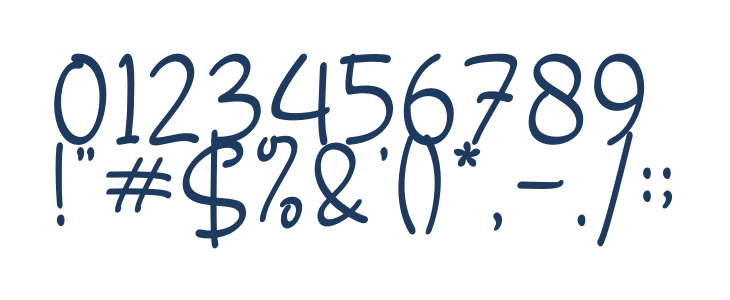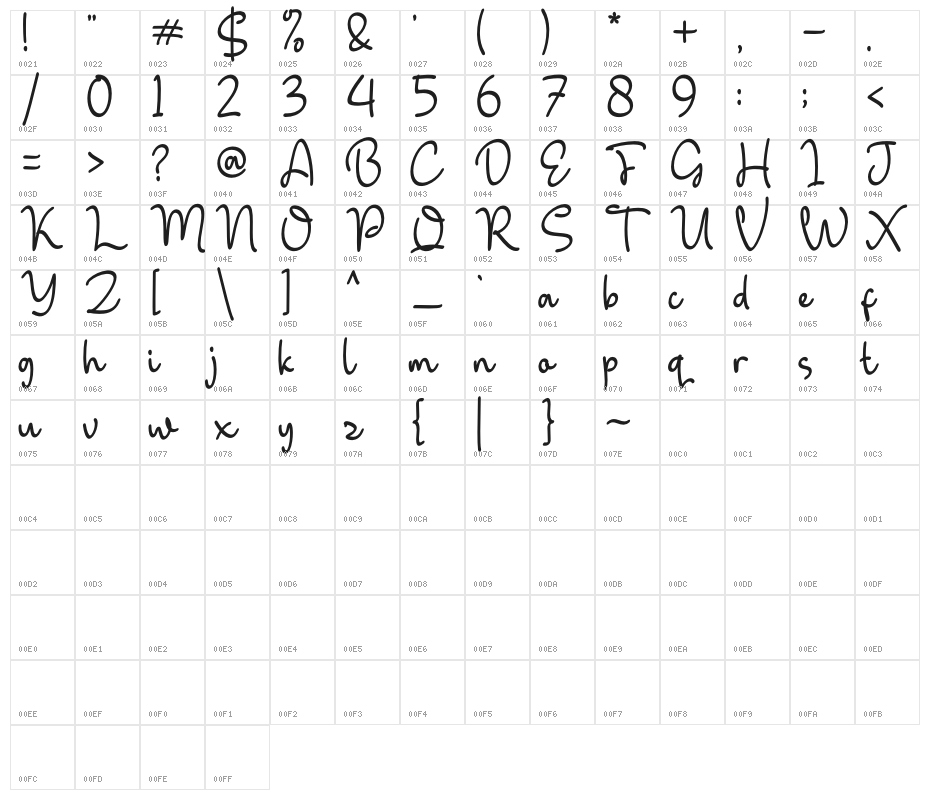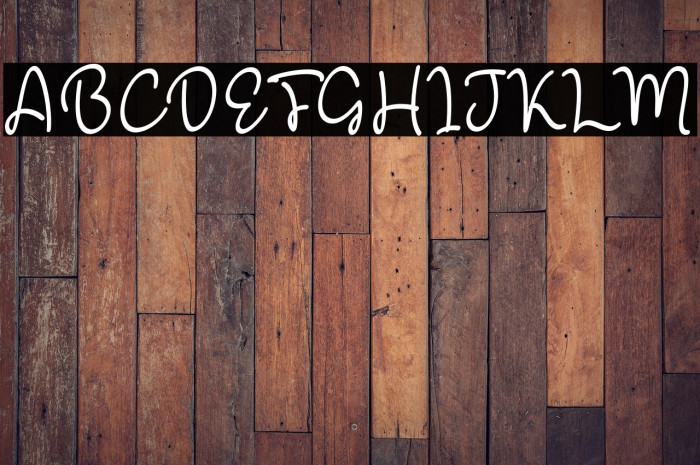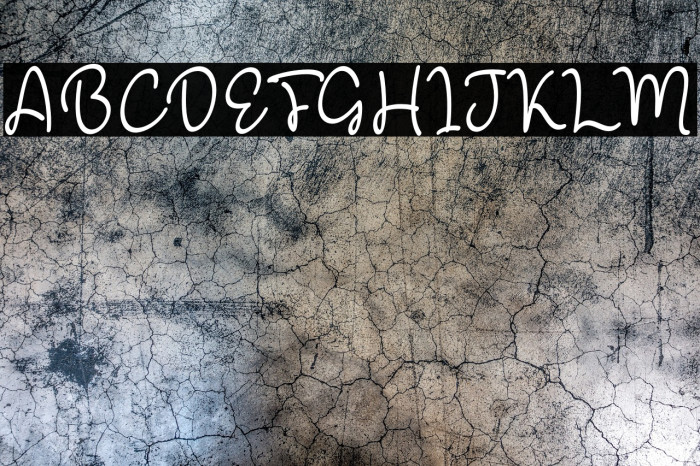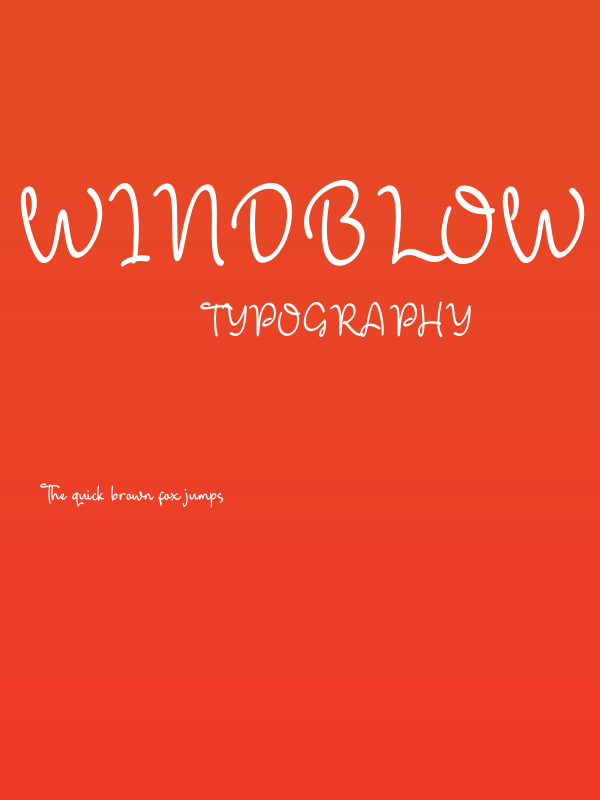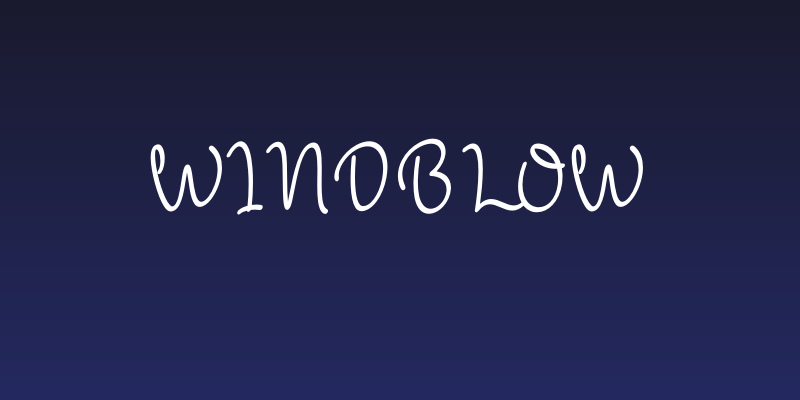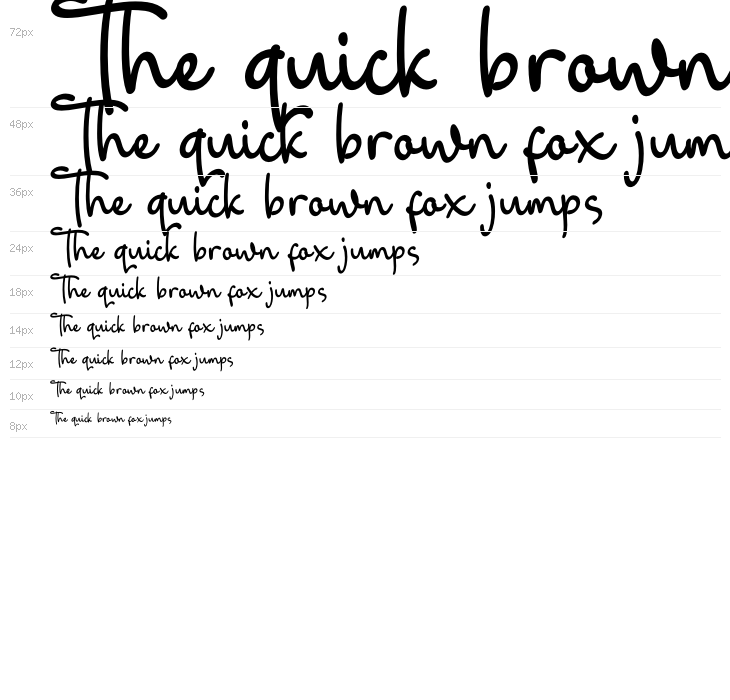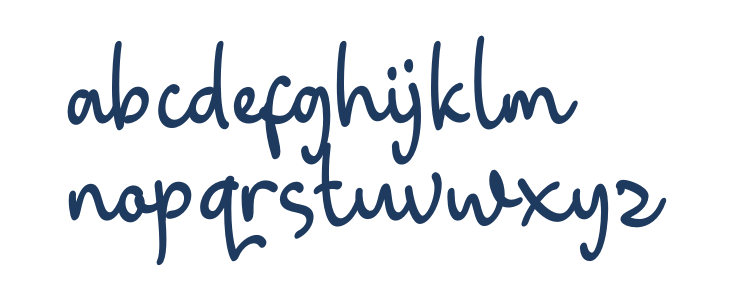
Windblow Font
Windblow Description
This font features a playful and whimsical style, characterized by its flowing, cursive-like strokes that mimic a handwritten script. The uppercase letters maintain a consistent height, with gentle curves and loops that add a sense of movement and fluidity. The lowercase letters are more dynamic, with varying heights and a slightly bolder appearance, enhancing the font's lively personality. The numerals are rounded and maintain the playful aesthetic, while the special characters integrate seamlessly with the overall design. This font exudes a casual and friendly vibe, making it suitable for creative and informal applications.
| Overall Style | Casual and playful |
| Use Case | Headlines, Invitations, Creative projects |
| Proposed Projects | Ideal for greeting cards, invitations, children's books, and creative branding projects. |